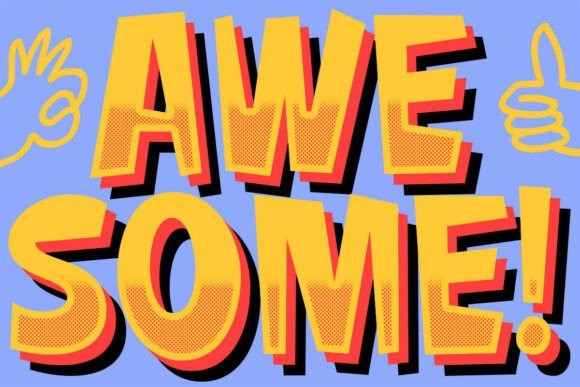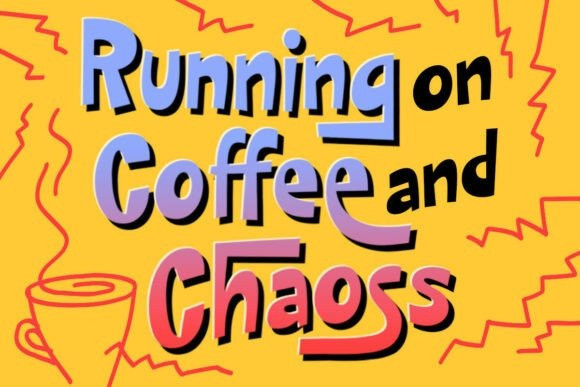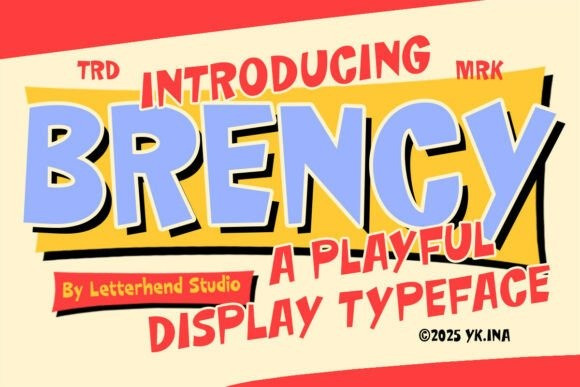
Brency Font is a cheerfully loud and boldly playful display typeface that instantly captures the vibrant, energetic world of vintage comics and cartoons, designed to grab attention with its chunky, high-impact style.
This dynamic Brency font features extra-thick, rounded letterforms and a charming irregular baseline, creating a bouncy, fun-loving rhythm. The heavy black outline around the colored letters emphasizes its cartoon aesthetic, making it impossible to ignore.
This expressive Brency font is a fantastic choice for children’s branding, toy packaging, comic book titles, party invitations, food labels, and any project that requires a bold, happy, and distinctly comic-style display font to convey pure, unadulterated fun and excitement.